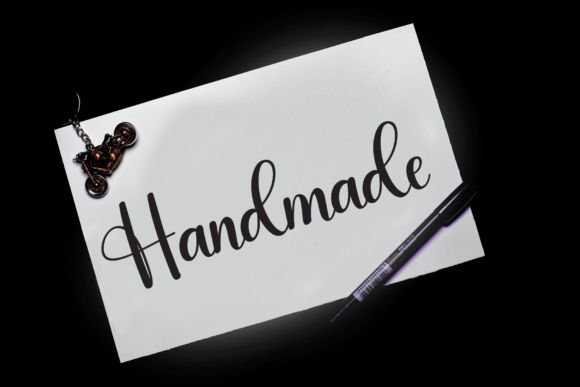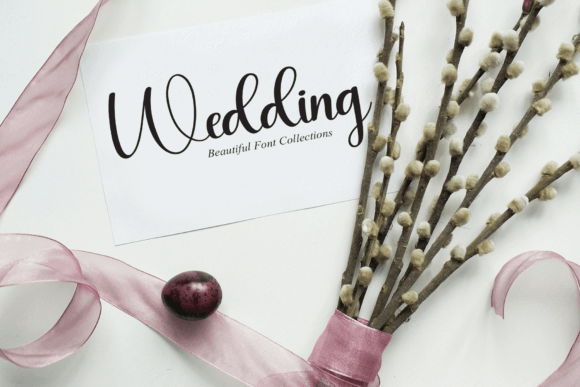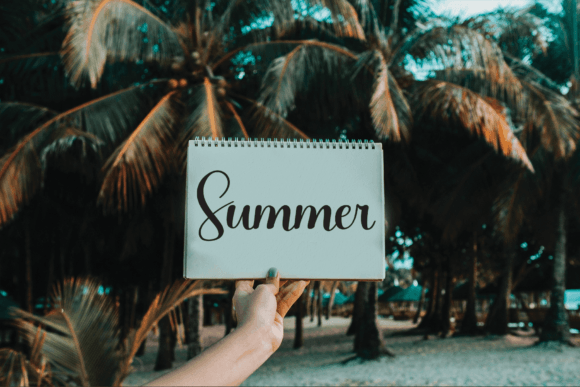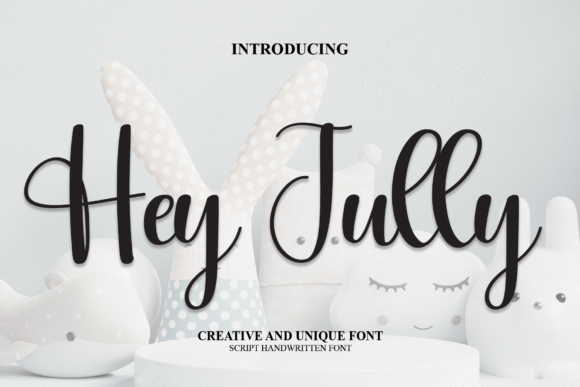
Introduction to Hey Jully Font
This is a unique handwritten font, described with an elegant touch, perfect for your favorite projects.
Fall in love with its totally different and timeless style and use it to create spectacular designs .
Key Features of Hey Jully Font
Why Choose Hey Jully Font?
Hey Jully Font offers exceptional quality and versatility, making it a valuable addition to your design toolkit. Whether you’re creating for personal projects or commercial use, Hey Jully Font delivers professional results.